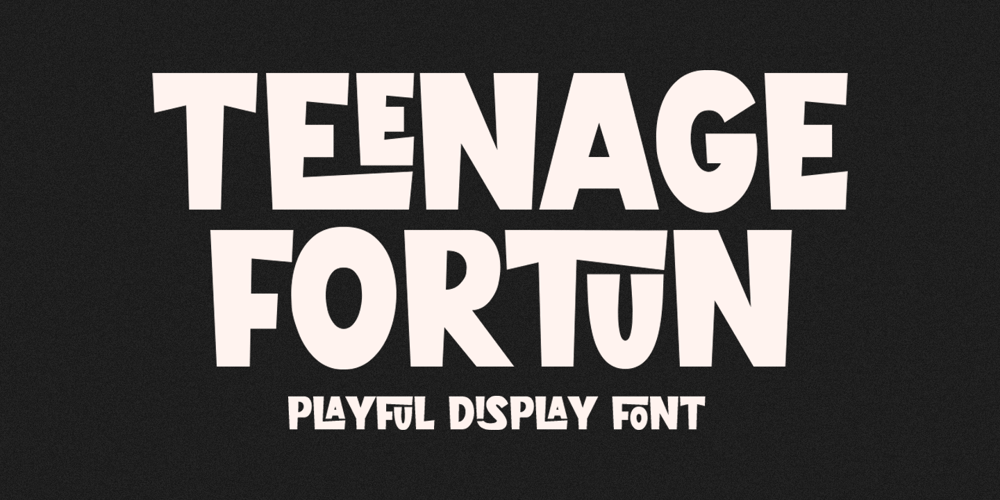
Teenage Fortun Font Family was designed by Miftahul Habib and published by Teenage Foundry. Teenage Fortun contains 1 styles and family package options. Teenage Fortun is a captivating and distinctive display font that combines a boxy structure with a touch of rebellious charm. The boxy design of Teenage Fortun gives it a modern and geometric aesthetic. Each letter is crafted with clean lines and sharp angles, creating a visually impactful presentation.One of the exceptional features of Teenage Fortun is its extensive set of beautiful ligatures. These ligatures are specially designed combinations of letters that flow seamlessly together, creating a harmonious and visually appealing effect. These decorative ligatures add a touch of elegance, flair, and uniqueness to your typography, making your designs stand out from the crowd.Features: Uppercase, Lowercase, Numeral, Punctuation & Multilingual.Multilingual contained: Afrikaans, Albanian, Asu, Basque, Bemba, Bena, Breton, Catalan, Chiga, Cornish, Danish, Dutch, English, Estonian, Filipino, Finnish, French, Friulian, Galician, German, Gusii, Indonesian, Irish, Italian, Kabuverdianu, Kalenjin, Kinyarwanda, Luo, Luxembourgish, Luyia, Machame, Makhuwa-Meetto, Makonde, Malagasy, Manx, Morisyen, North Ndebele, Norwegian Bokmål, Norwegian Nynorsk, Nyankole, Oromo, Portuguese, Quechua, Romansh, Rombo, Rundi, Rwa, Samburu, Sango, Sangu, Scottish Gaelic, Sena, Shambala, Shona, Soga, Somali, Spanish, Swahili, Swedish, Swiss German, Taita, Teso, Uzbek (Latin), Volapük, Vunjo, Zulu.For any questions please contact me 🙂Thanks!